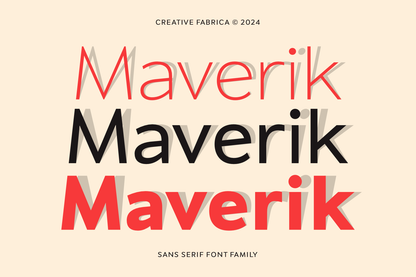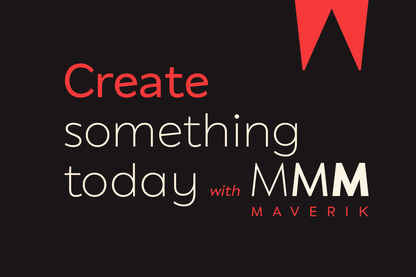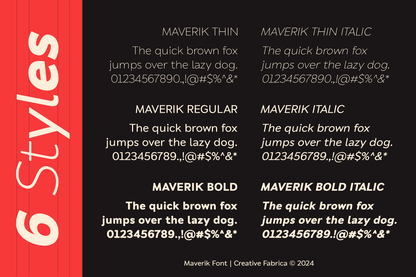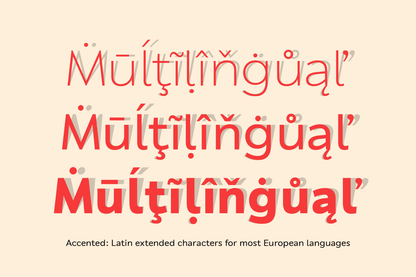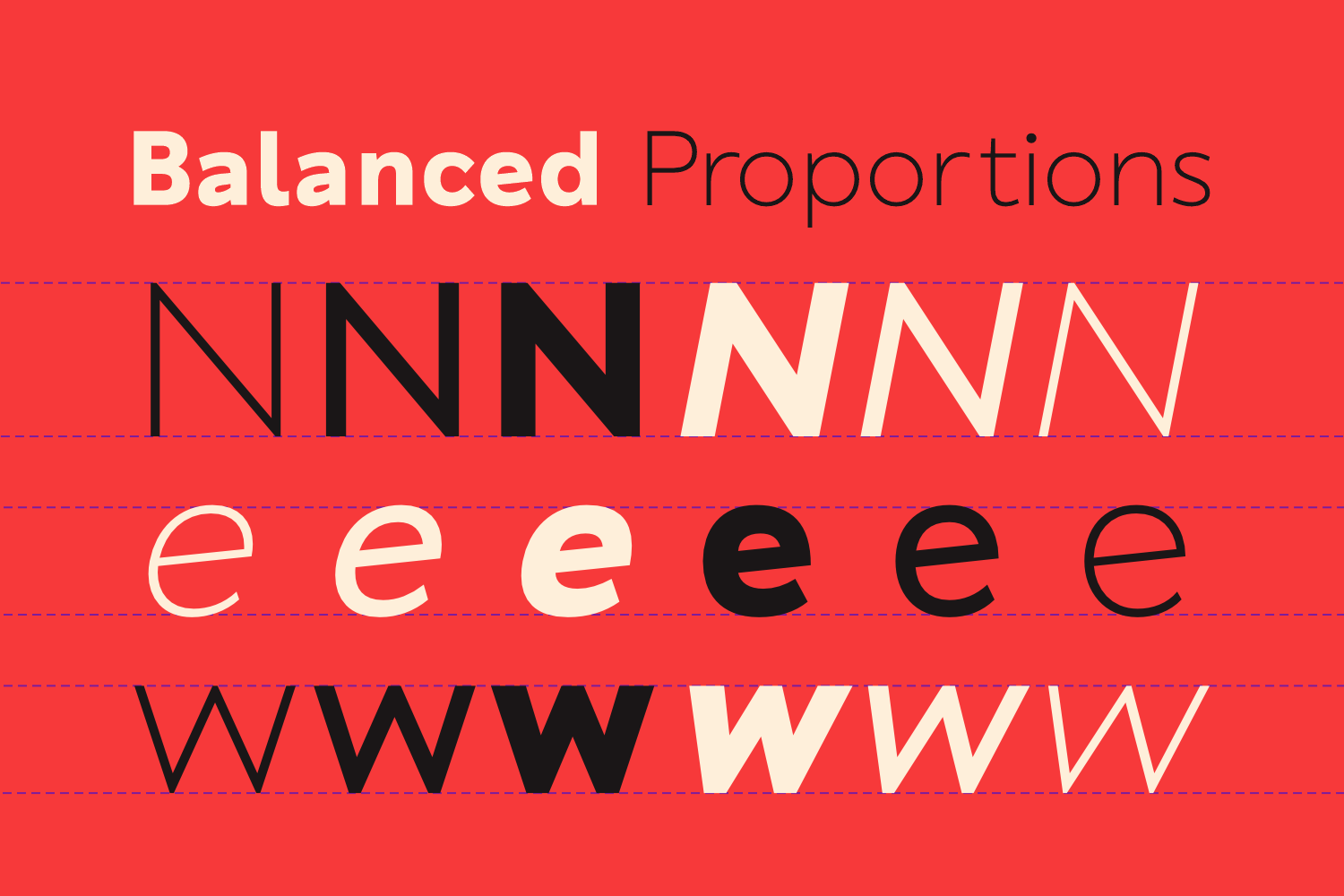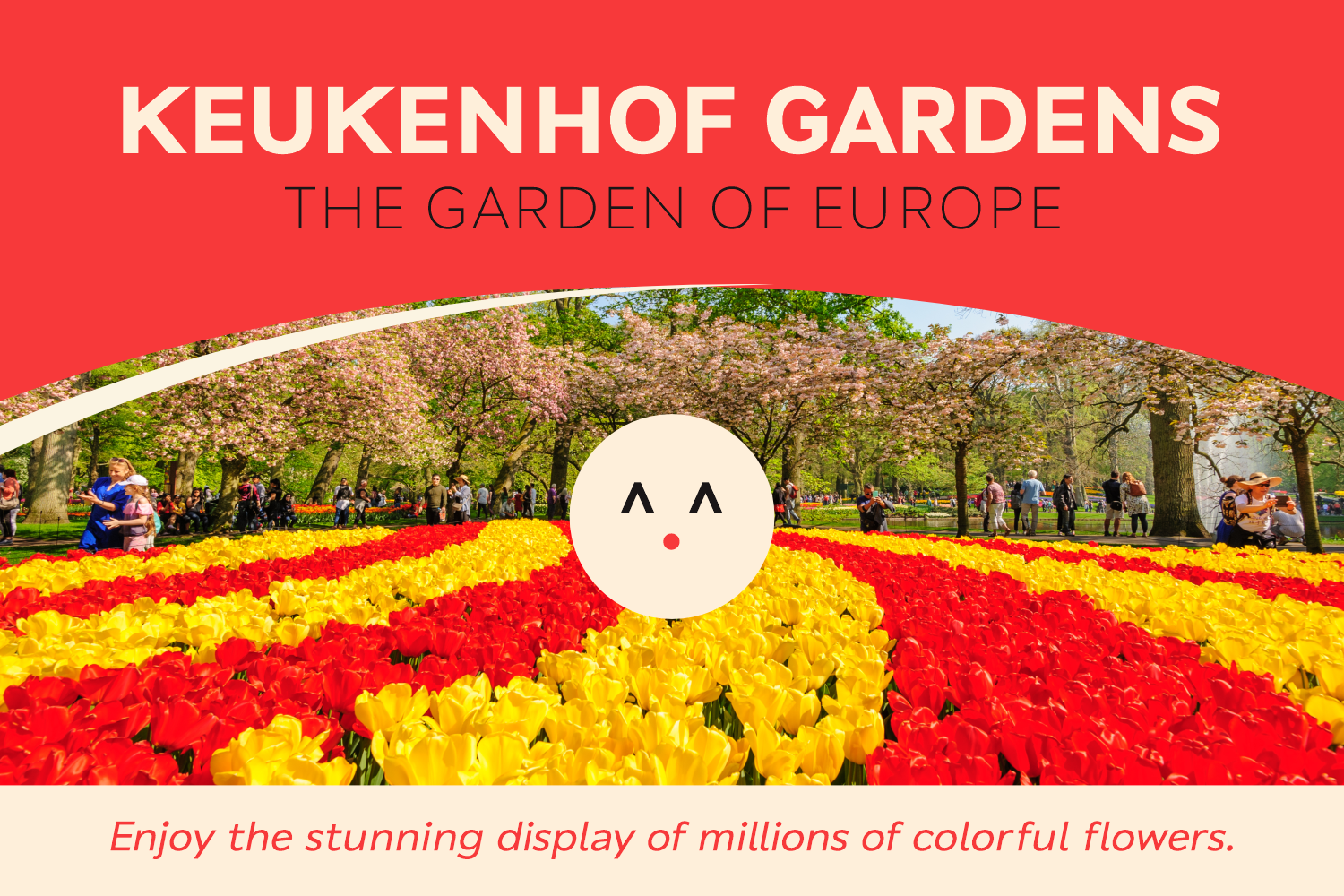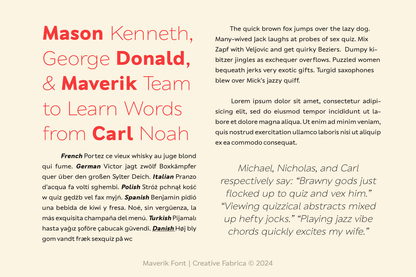
Maverik is a high-quality sans-serif typeface that stands as a sophisticated alternative to the renowned Gibson font. Designed with meticulous attention to detail, Maverik features balanced proportions, clean lines, and a versatile structure that suits a wide range of applications. Perfect for modern branding, sleek digital interfaces, and compelling editorial layouts, Maverik effortlessly blends style and functionality. This typeface is a testament to exceptional design, delivering a professional yet approachable aesthetic to elevate any project.